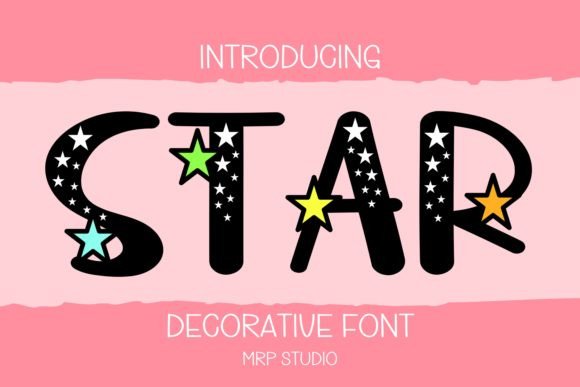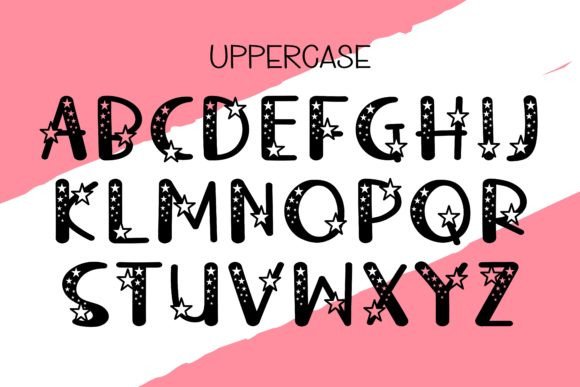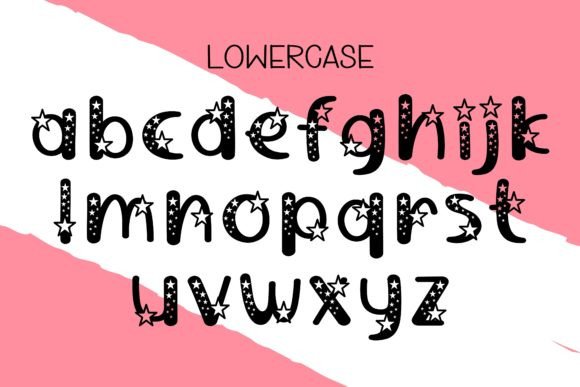
Star Font
Star is a sweet and adorable decorative font. This gentle font will look gorgeous on a variety of design ideas. It will add a joyful and romantic touch to each of your projects!